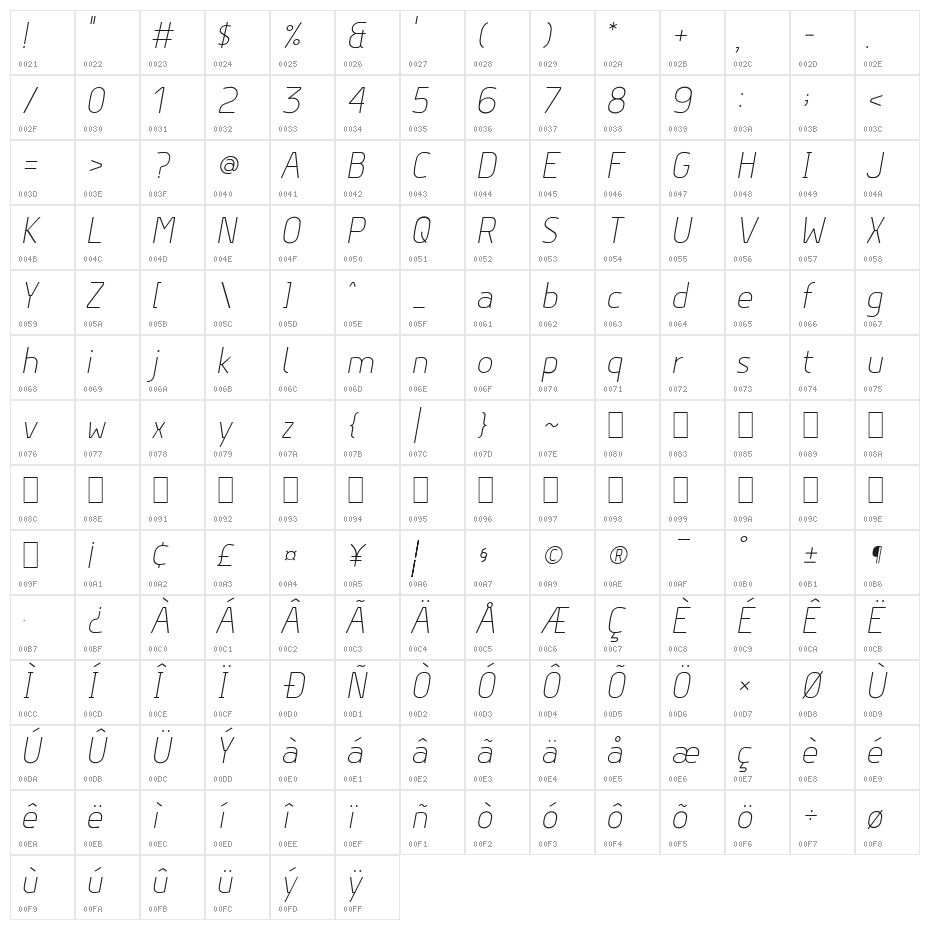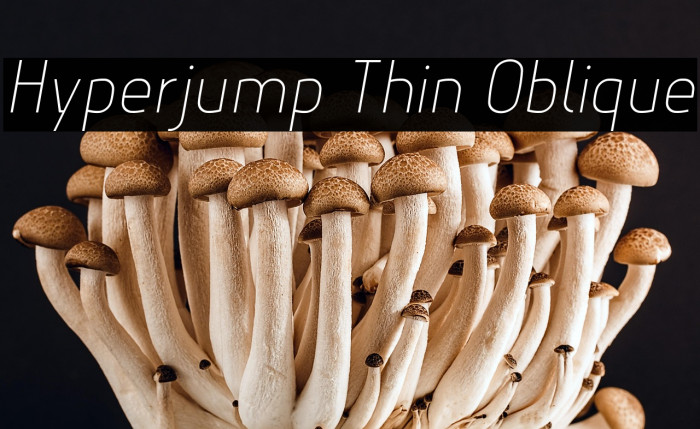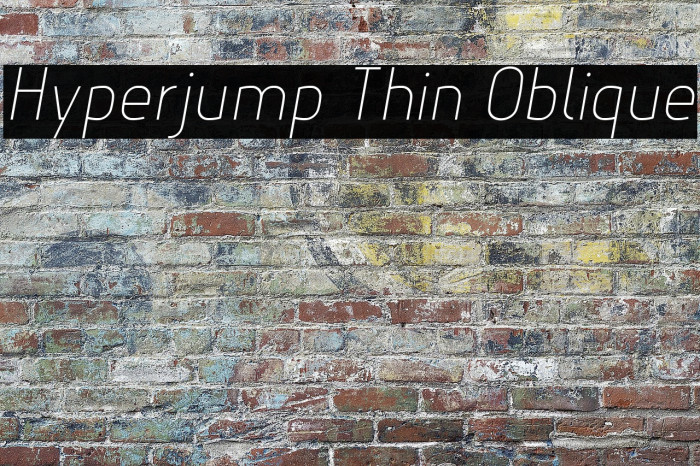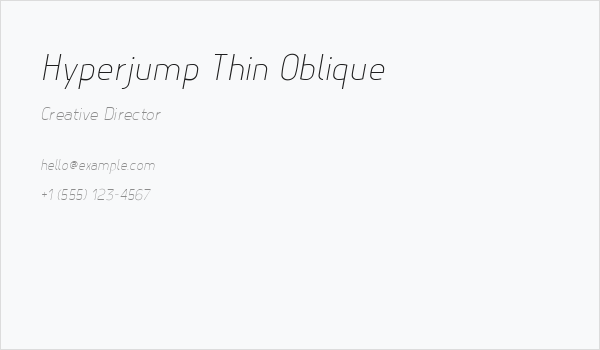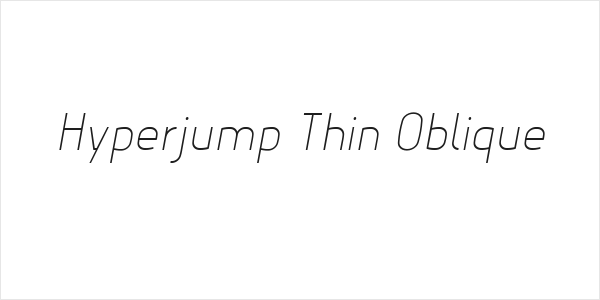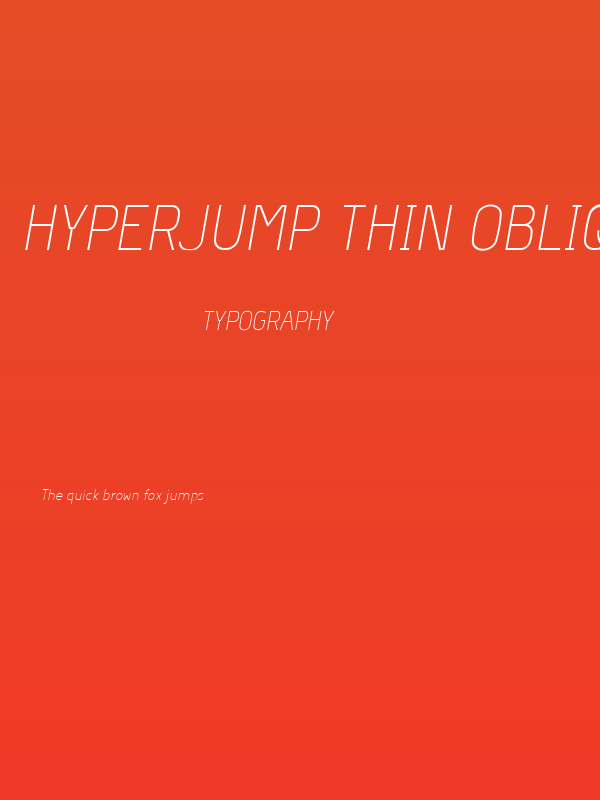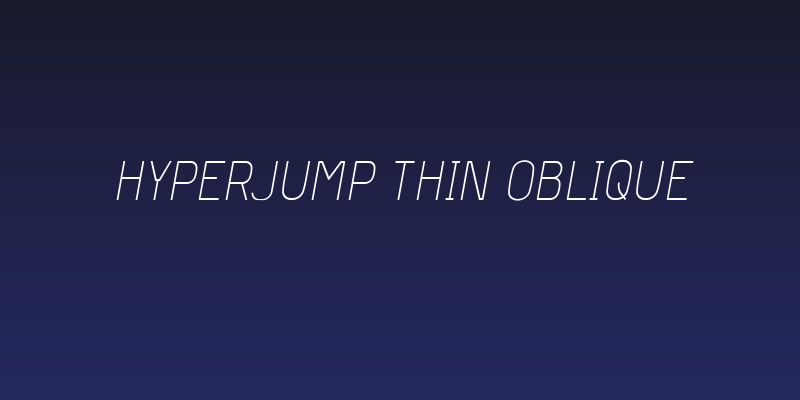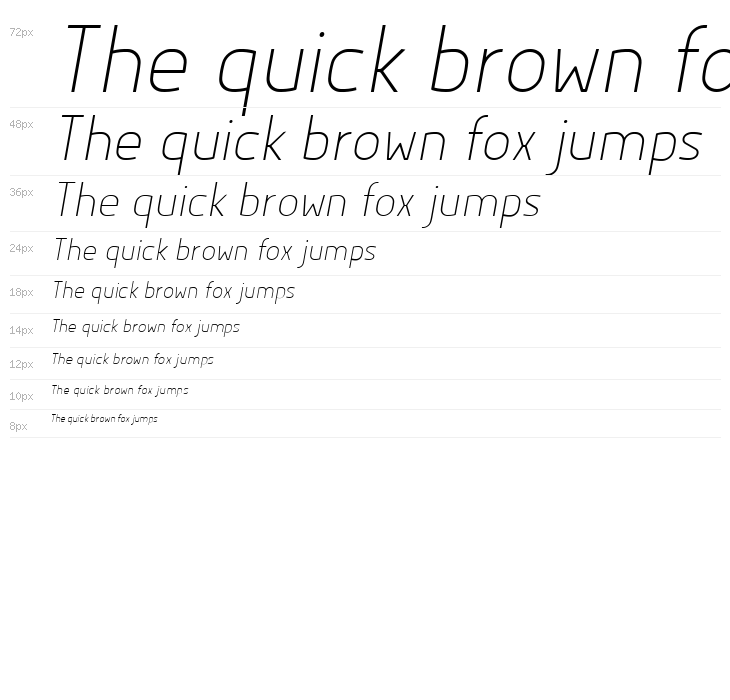
Hyperjump Thin Oblique Font
Hyperjump Thin Oblique Description
This font features a sleek, modern design with a thin and oblique style. The characters are elongated and slightly slanted, giving a sense of motion and dynamism. The uppercase and lowercase letters maintain a consistent, streamlined appearance, with smooth curves and clean lines. The numerals are equally refined, complementing the overall aesthetic. Special characters are included, maintaining the same elegant and contemporary feel. This font is ideal for projects that require a futuristic or high-tech look, offering a sophisticated yet approachable vibe.
| Proposed Projects | Ideal for tech branding, modern websites, futuristic posters, and sleek product packaging. |